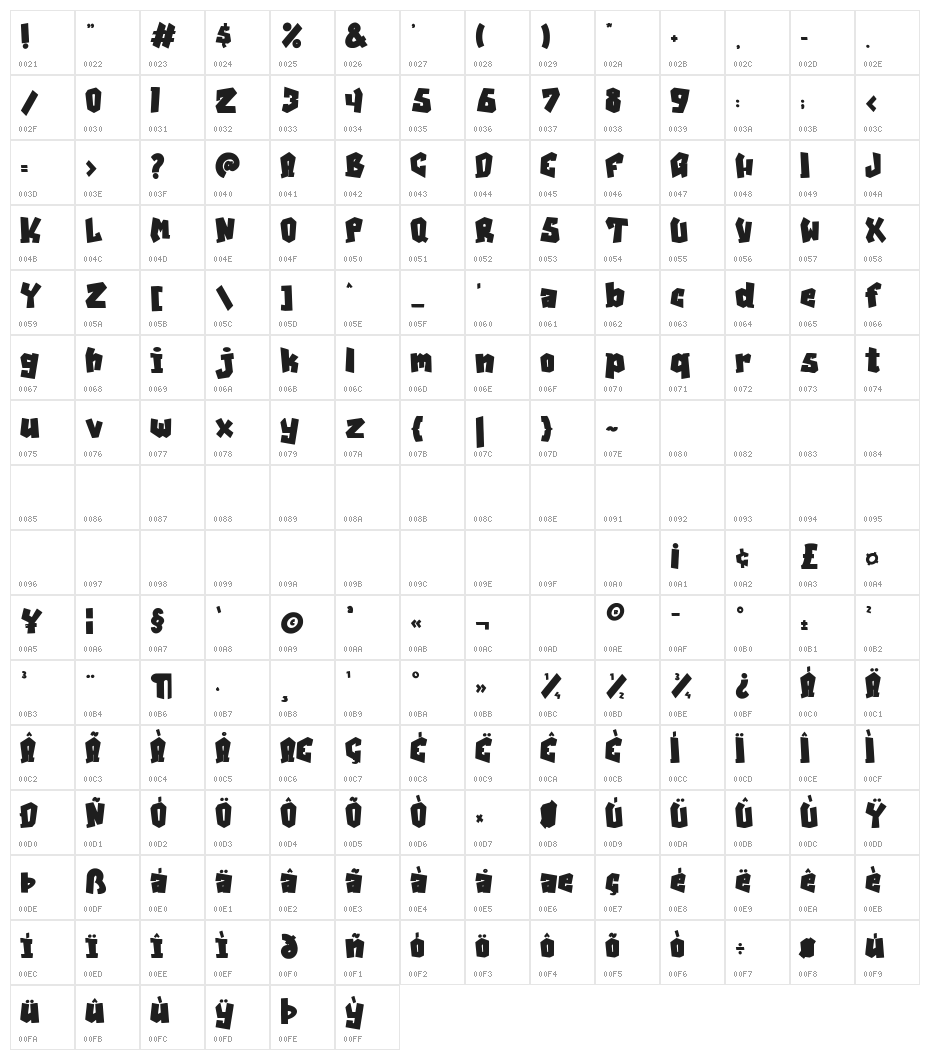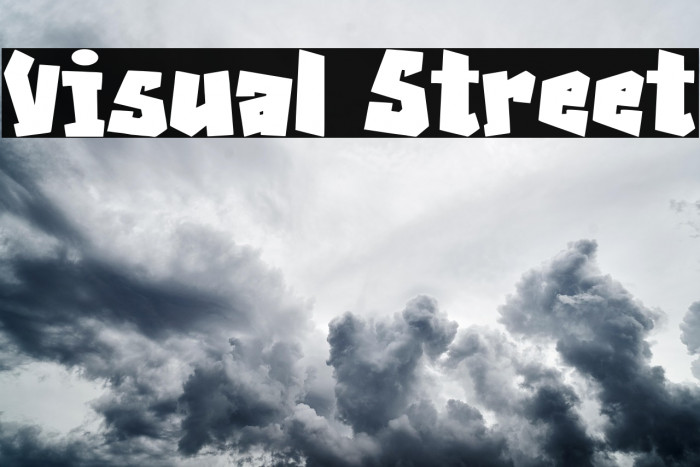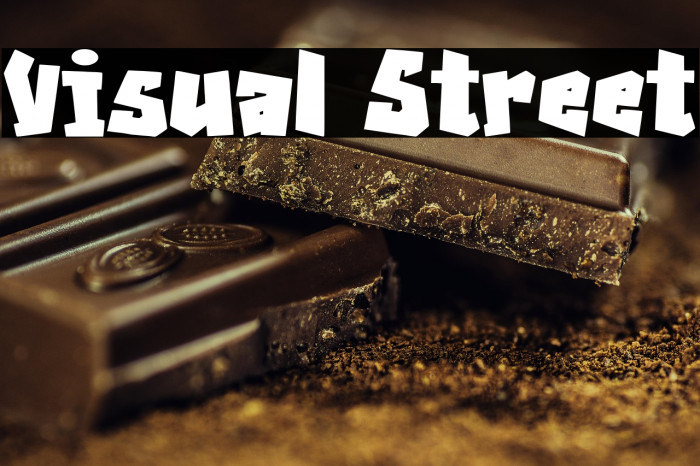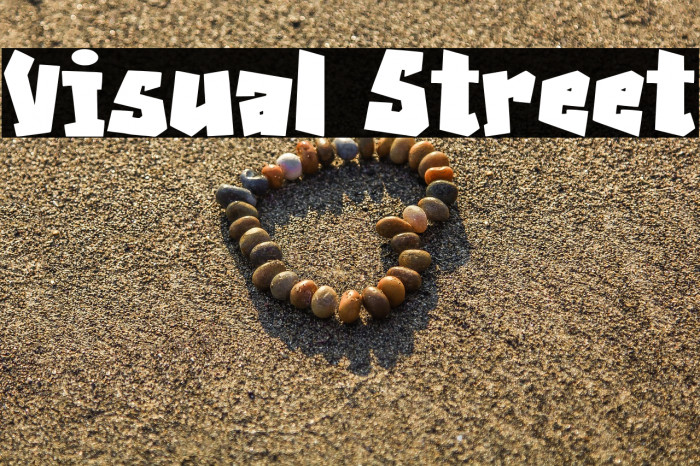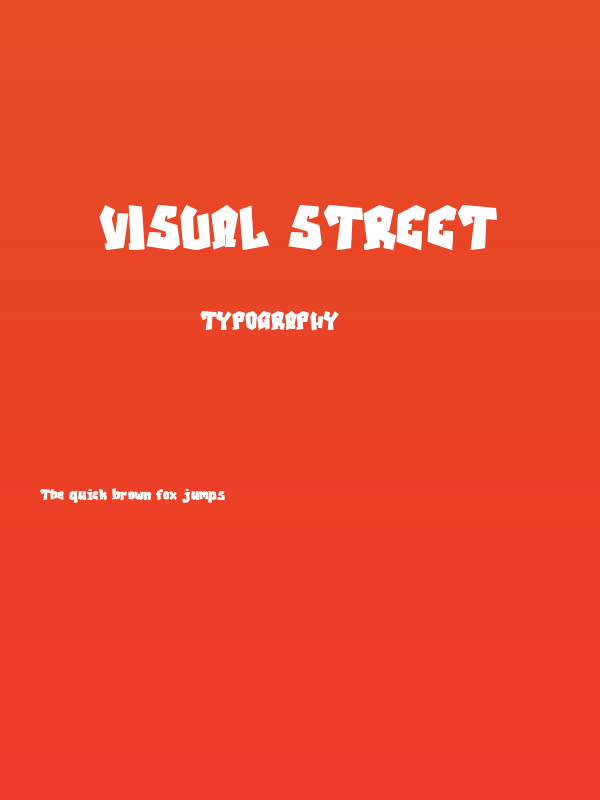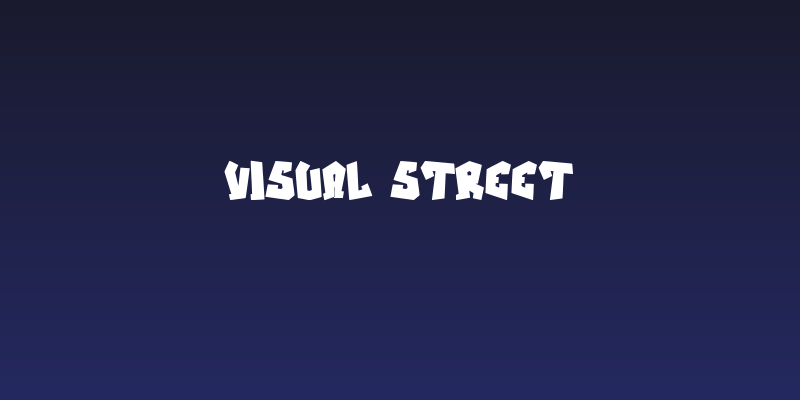
Visual Street Font
✎ Graffiti
Visual Street Description
This font features a bold, dynamic style with a distinct urban flair. The characters are heavily stylized with sharp angles and irregular shapes, giving it a graffiti-like appearance. The uppercase and lowercase letters maintain a consistent weight, contributing to a cohesive look. Numbers and special characters follow the same design principles, ensuring uniformity across all elements. The font's boldness and unique character shapes make it stand out, ideal for projects that require a strong visual impact.
| Overall Style | Urban, Graffiti, Bold |
| Use Case | Logos, Posters, Headlines |
| Proposed Projects | Ideal for street art designs, urban-themed posters, music album covers, and edgy branding projects. |